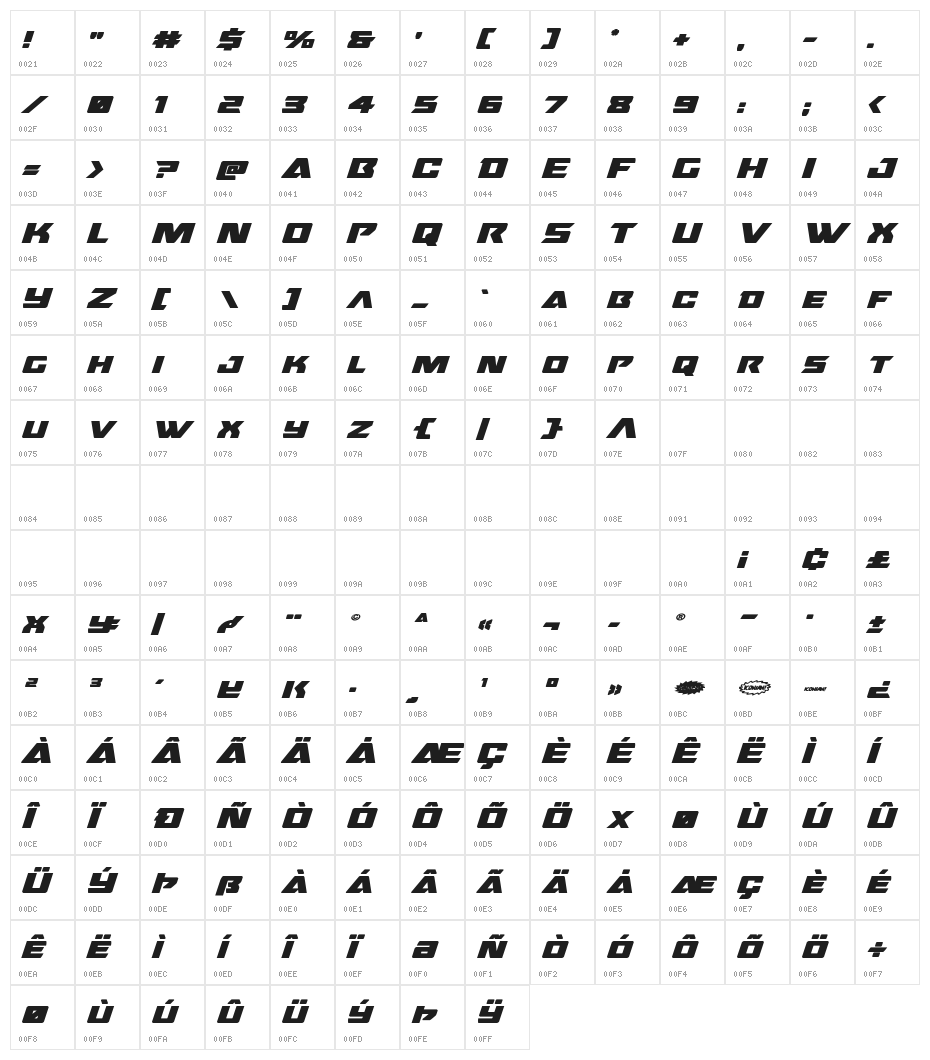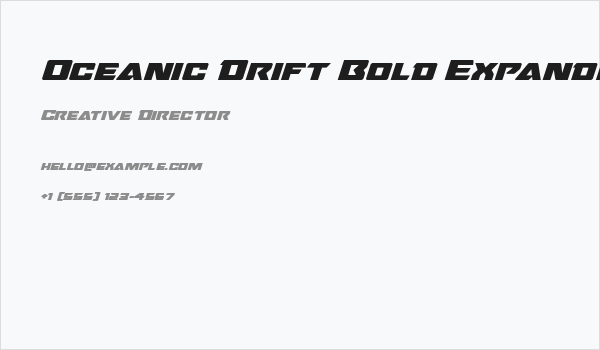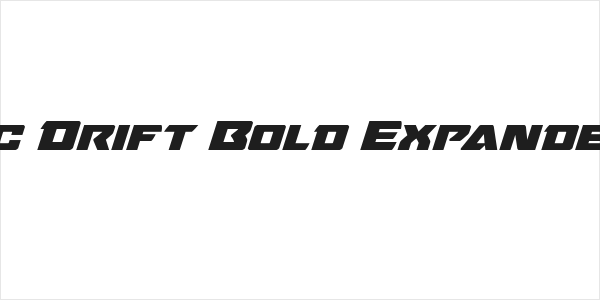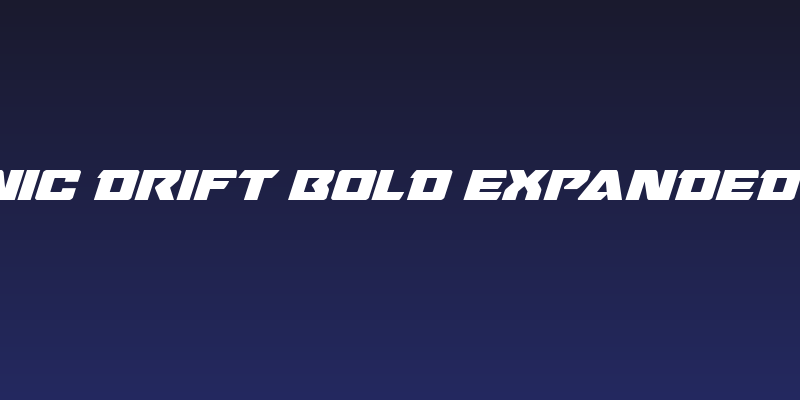
Oceanic Drift Bold Expanded Italic Font
Oceanic Drift Bold Expanded Italic Description
This font features a bold and expanded style with a distinct italic slant, giving it a dynamic and forward-moving appearance. The characters are robust and impactful, with strong, angular lines that convey a sense of speed and modernity. The expanded width allows for excellent readability, making it suitable for attention-grabbing headlines and titles. The italic angle adds a touch of elegance and fluidity, balancing the boldness with a sleek, contemporary feel. The numbers and special characters maintain the same bold and italicized characteristics, ensuring consistency across all elements.
| Proposed Projects | Ideal for sports branding, automotive advertisements, dynamic posters, and modern web design. |